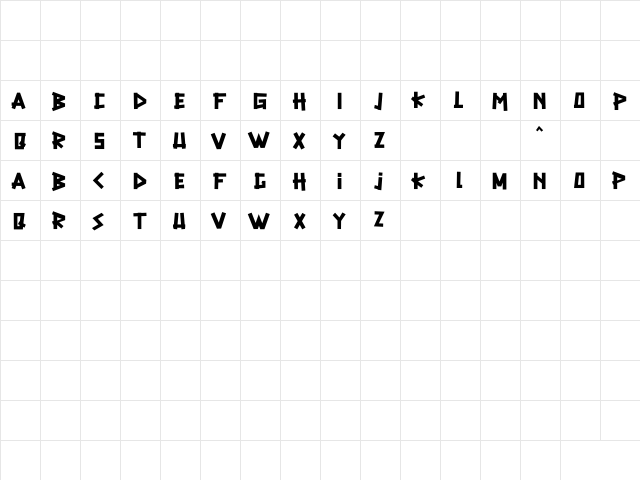
Blindside Regular
| Designer | Sya'dan Ismail Rosyad |
Design Context for Blindside Typeface
Blindside is a composed and adaptable typeface that performs quietly and consistently across a wide range of design contexts.